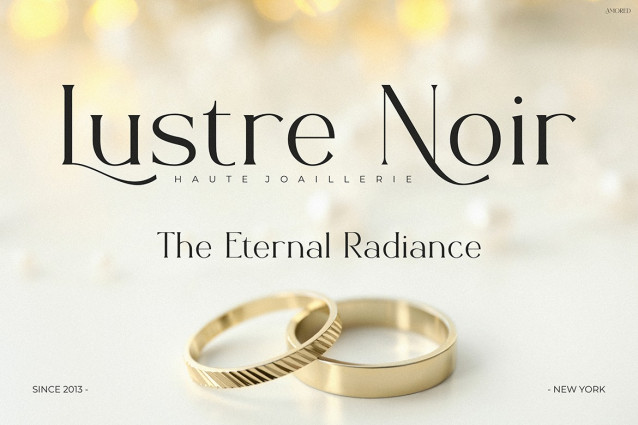
Amored Font
Amored Font: Give your words a touch of elegance, style, and confidence. This font combines subtle curves with graceful strokes, giving any design a timeless yet modern look. Plus, the bold accents contrast beautifully with the delicate lines, making the font stand out instantly. The real emphasis comes from the alternating capital letters, allowing you to experiment with different styles. This allows you to tweak your design to feel bold, subtle, or luxurious, depending on your preference.
In addition, Amored adapts easily across digital and print. You can apply it to Instagram posts, branding campaigns, fashion packaging, wedding invitations, or editorial layouts. Therefore, it works as both a creative tool and a professional design asset. For example, when you use it on social media, it transforms a simple caption into a high-end visual statement.
Amored serves many creators who want a polished aesthetic. Designers and branding specialists can rely on its uppercase alternates to customize logos, packaging, and magazines with fresh personality.
Moreover, fashion and lifestyle brands gain instant prestige when they use Amored in their feeds, advertisements, or lookbooks. Wedding planners, jewelers, and photographers also benefit, since the font conveys romance and elegance for invitations, posters, and promotional content.
In addition, influencers and digital creators can use Instagram Font Amored to craft posts, reels, and stories that stop people from scrolling. Business owners also gain value, because the font strengthens brand identity with luxury and authority. Furthermore, the alternate uppercase letters give endless flexibility, so you never run out of creative options.
In conclusion, Instagram Font Amored doesn’t just style your words—it elevates them. Each letter communicates strength, beauty, and intention. Moreover, the alternates give you freedom to shape your own unique look.
Finally, choose Amored if you want your work to shine with elegance and prestige. With its blend of modern design, timeless luxury, and versatile uppercase alternates, this font turns every project into a masterpiece.